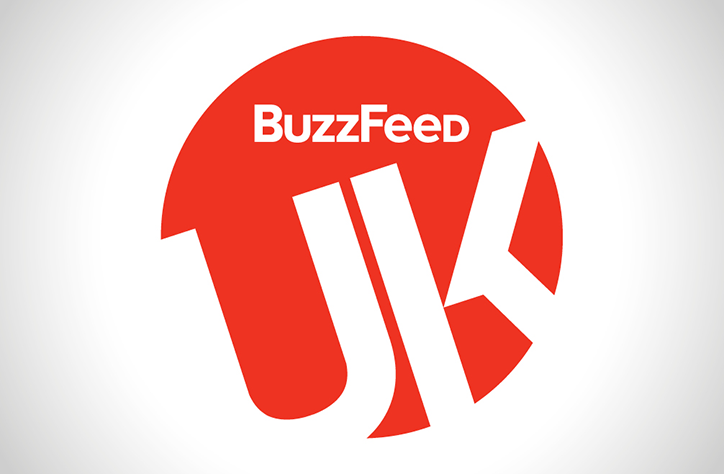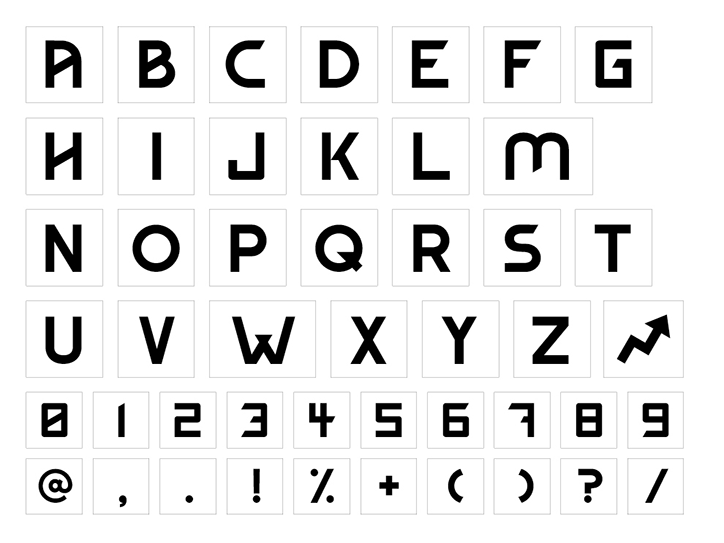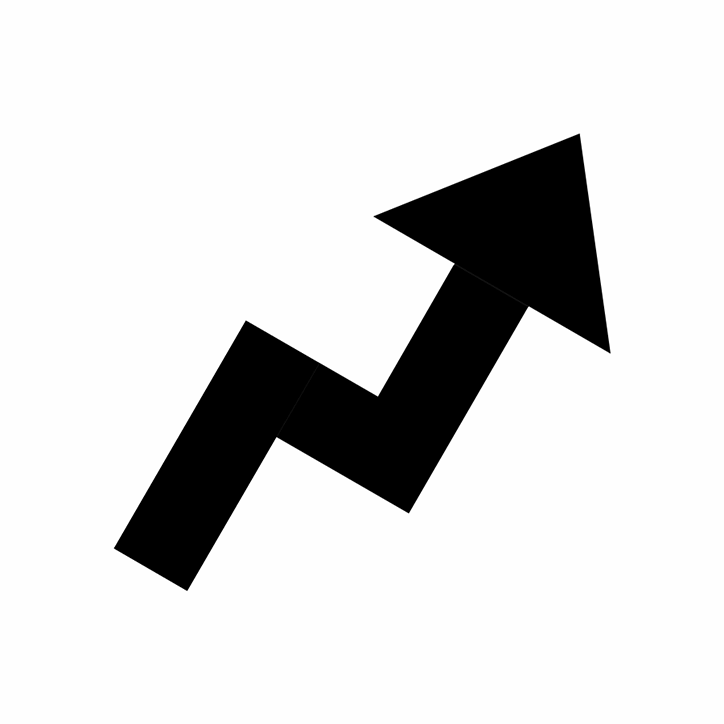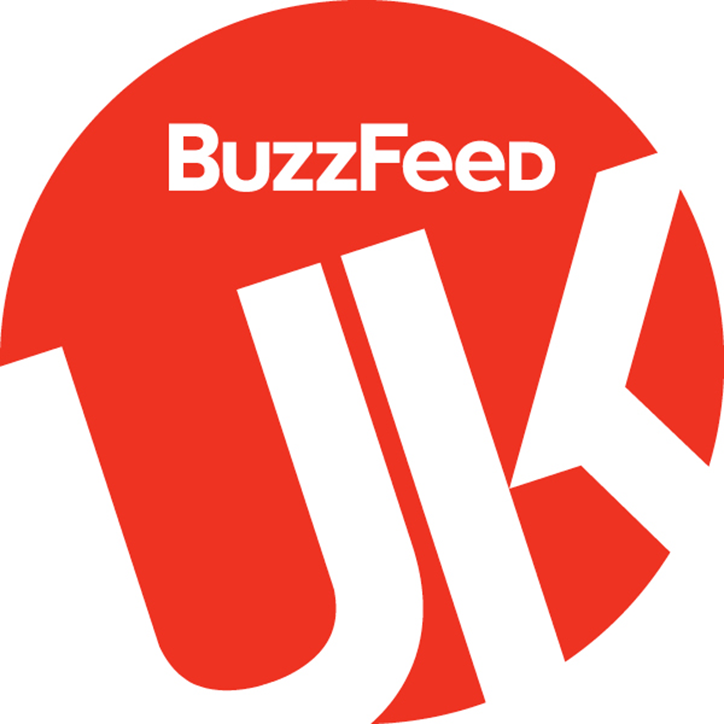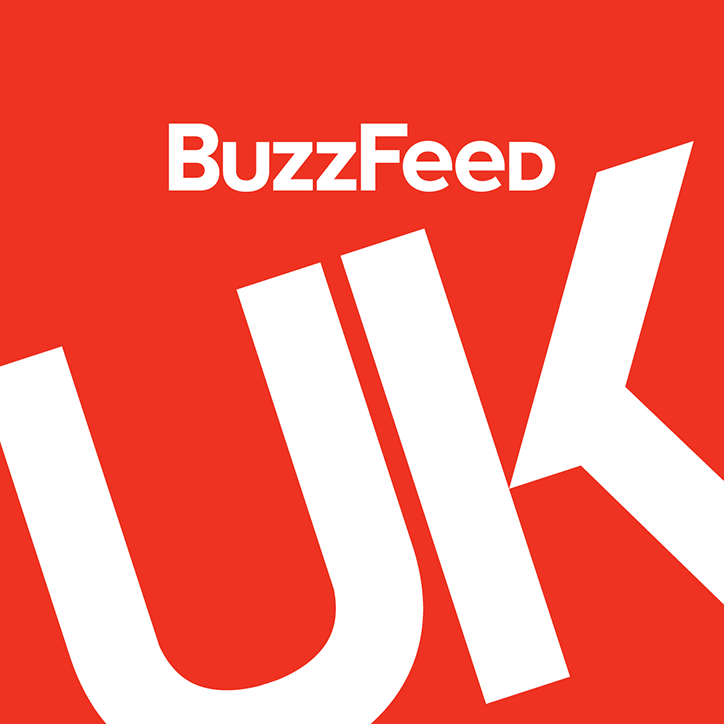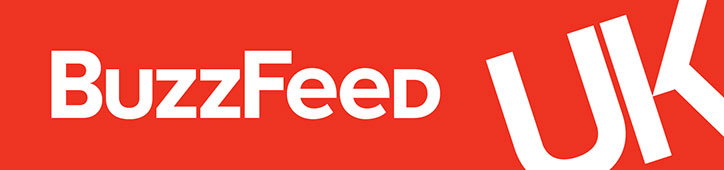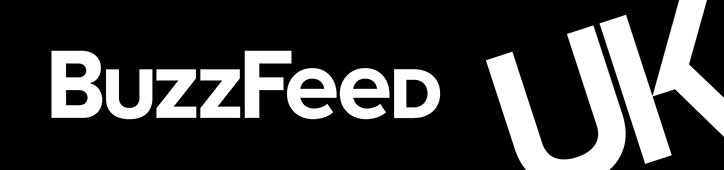
Buzzfeed UK reveals new logo and bespoke typeface inspired by the trending arrow (exclusive)
Buzzfeed UK has revealed a new logo and bespoke typeface, designed by art director Tim Lane using the “trending arrow” as its point of inspiration. In June 2017, Tim spoke to It’s Nice That in-depth about the lengthy redesign process of the UK site, aiming to “raise the design standards of Buzzfeed and give the UK its own visual style”. Unveiled today on It’s Nice That ahead of its roll-out on 1 June 2018, this new logo and bespoke typeface design is “the next big step in cementing the redesign,” he says, catching up with us almost a year on.
In tune with his creative direction for the site, the Buzzfeed UK logo is “irreverent, bold and considered” in style, with UK written in the typeface Buzz UK, which Tim developed based on Buzzfeed’s arrow icon. “I took elements from the iconic BuzzFeed trending arrow to create a font,” Tim explains, "for example, the angles and the weight of each letterform are drawn from the arrow. It’s a nod to the overarching logo of Buzzfeed, while still specific for us.
“I imagined that the arrow was a character in a typeface, and built it from there. I started with ‘a’, ‘g’ and ‘w’ to get a sense of how it would work… by the time I got to ‘u’ and ‘k’ it was quite fluid and came easily.”
While at the moment the typeface is just being used for the UK logo, it will begin to be rolled out in headers for articles across the site. “It’s not the only font we’ll use – though we have narrowed our font use down to two or three – but for the right articles, we’ll drop it in.”
The logo has been designed to work across eight platforms, from the core site to social media, so Tim’s design had to be adaptable to all sorts of format, including a circle, square, wide banner and video. All Buzzfeed’s design work is mobile-first as analysis found 75% of users browsed content on mobile. “Whenever we think about anything visual, illustration, photography, and so on, we have to consider mobile first.” During the process, Tim says the team considered paring back the logo to become “BF UK” but it felt “too far from the main brand, so we tapered it back.”
It also stays true to the core brand using “Buzzfeed red” as its main colour. At its heart, the logo – as with all the in-house creative team’s output – has been designed to encompass both sides of Buzzfeed’s identity: the fun quizzes it first became famous for, and the serious, hard-hitting and award-winning investigative news.
“I feel this design is more reflective of the UK’s visual output. It gives us our own identity and aesthetically separates us from the rest of the world. It’s still ‘Buzzfeedy’ but with a UK twist. It’s well overdue that we take ownership.”
Buzzfeed: Buzz UK typeface
Buzzfeed UK